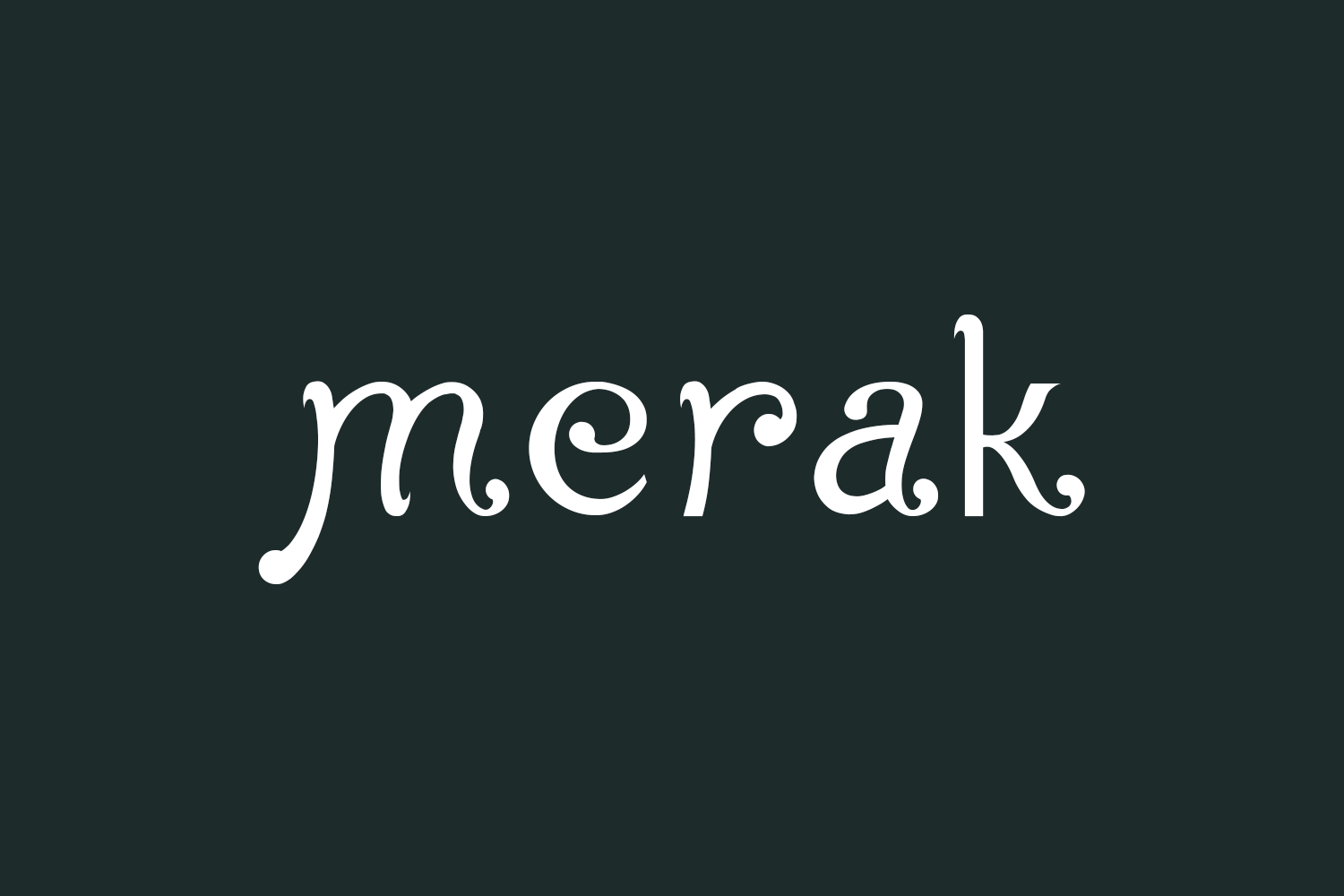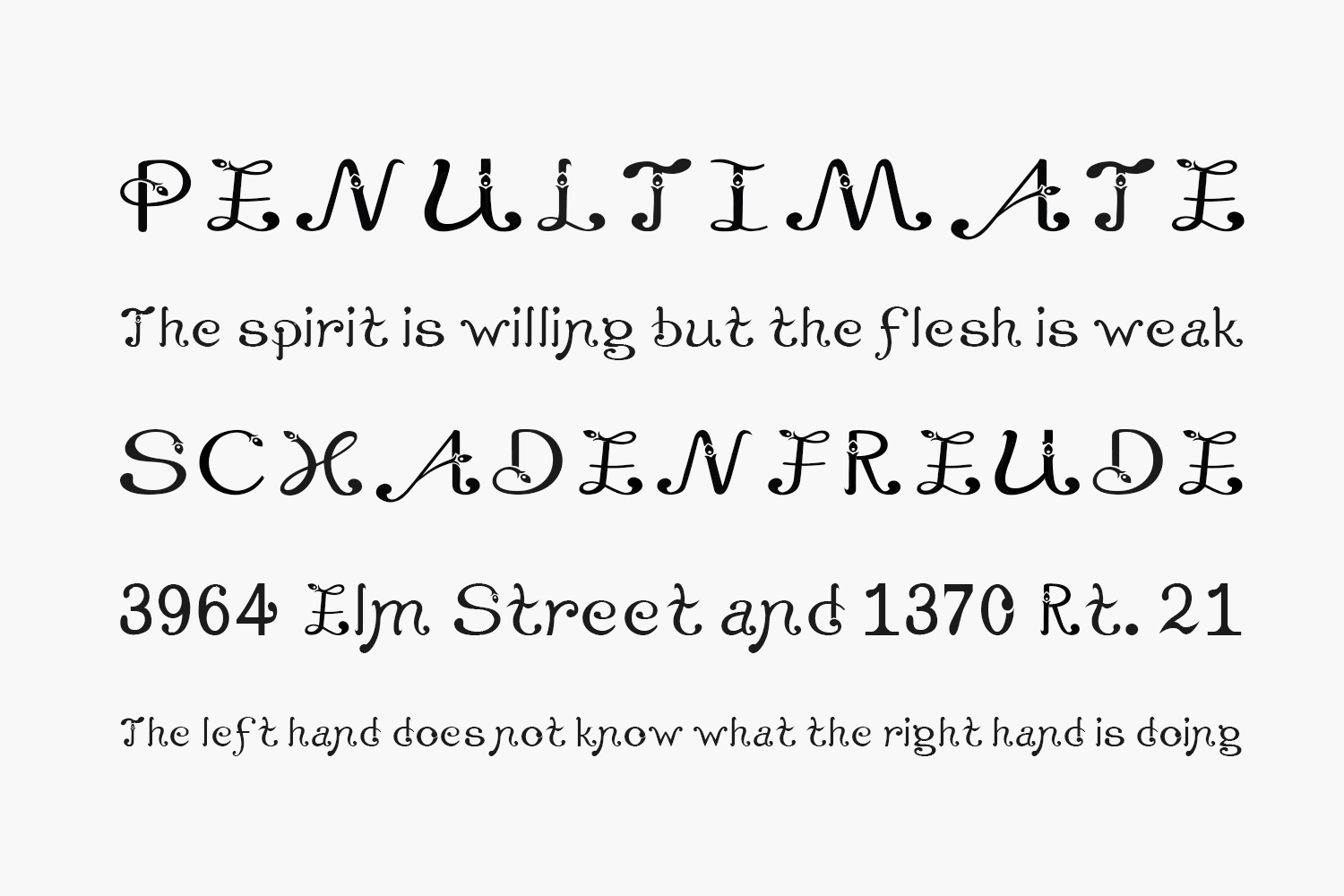
Merak Free Font is a traditional dance from West Java. The dance was created to express the beauty of the animal Merak (peacock). For the same reason, this font was made to appreciate the beauty of tari merak. Merak Free Font is free for personal use only. Please purchase the full version for commercial use.
Designed by Beatrix Valentina